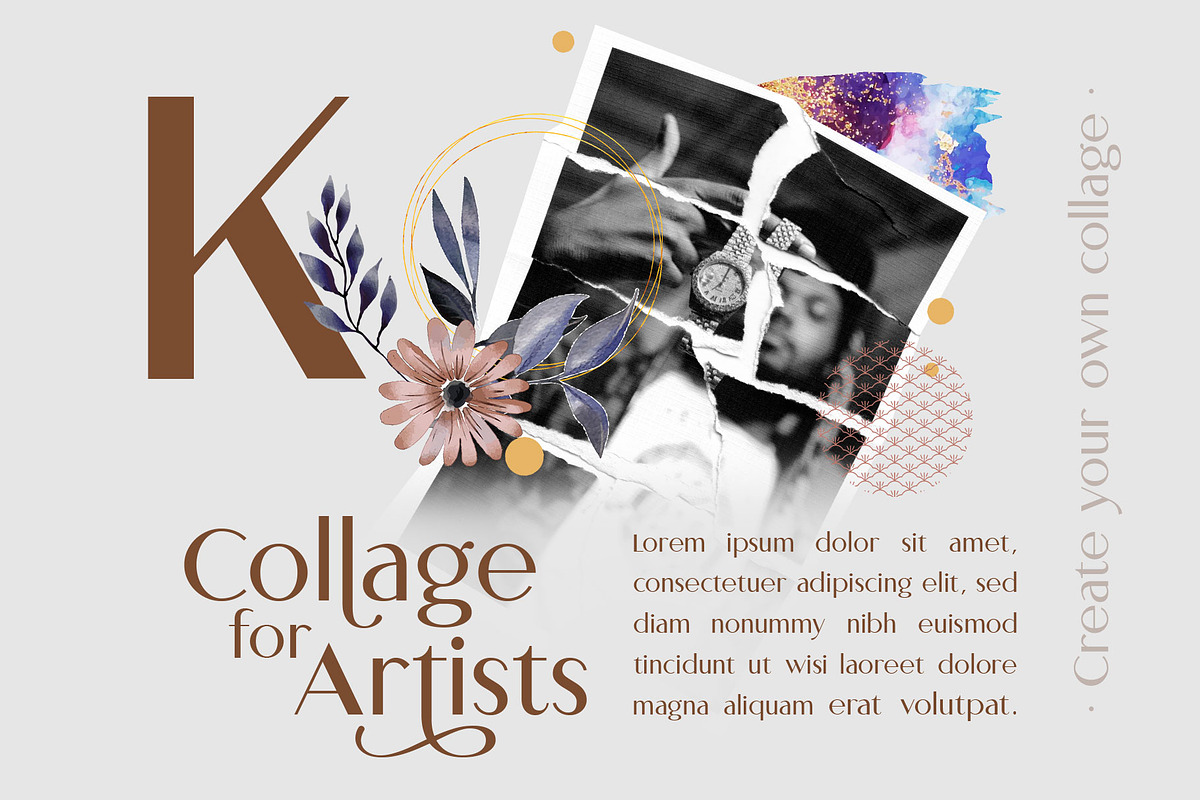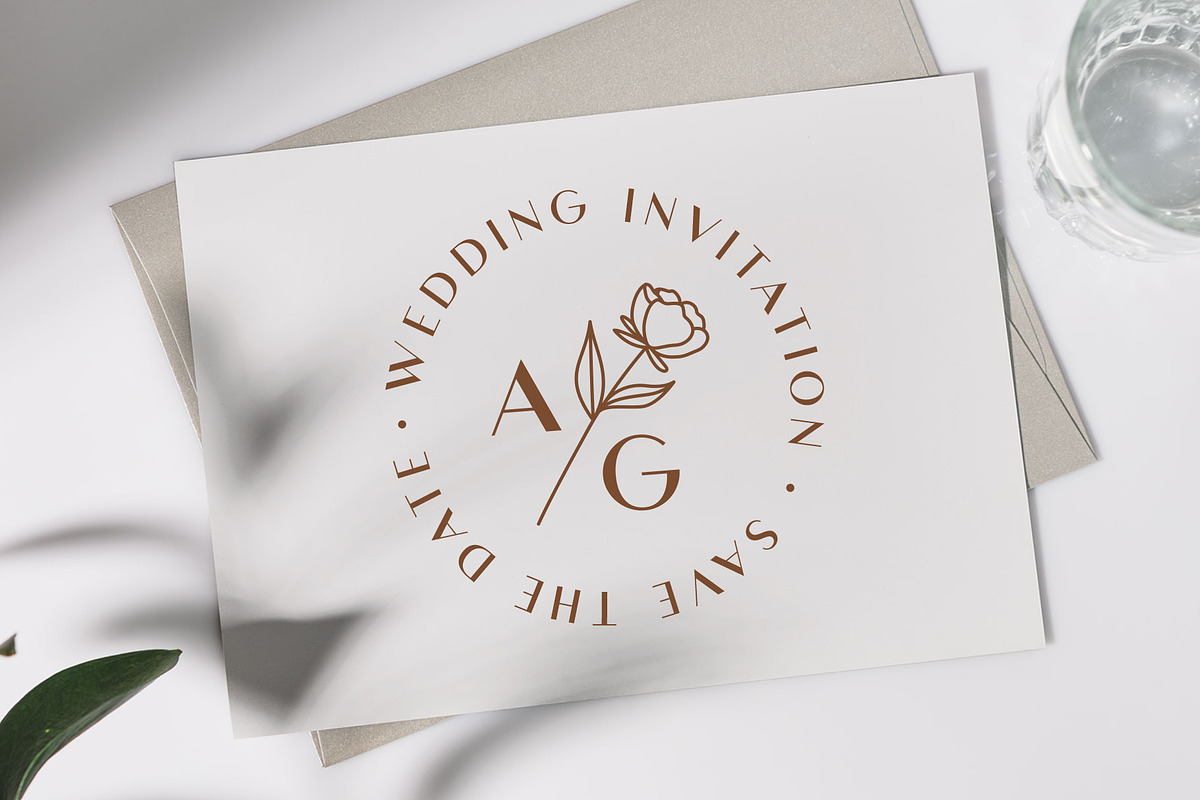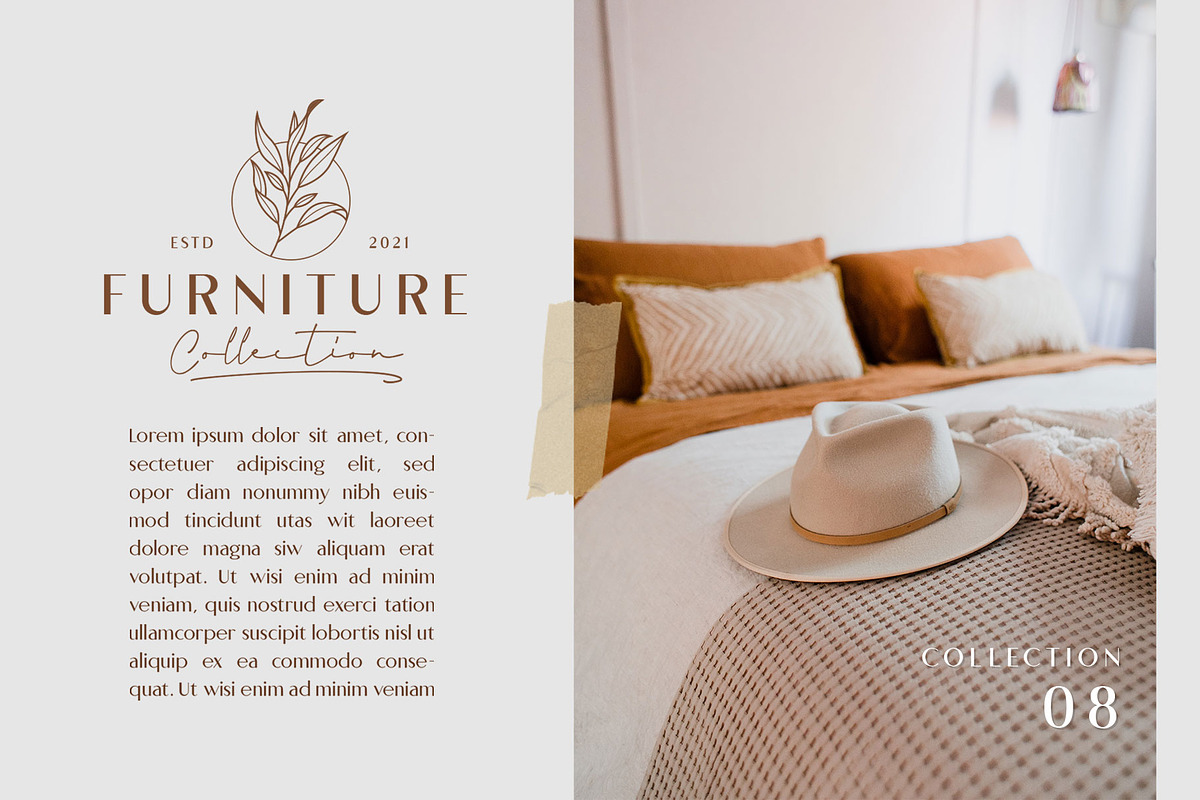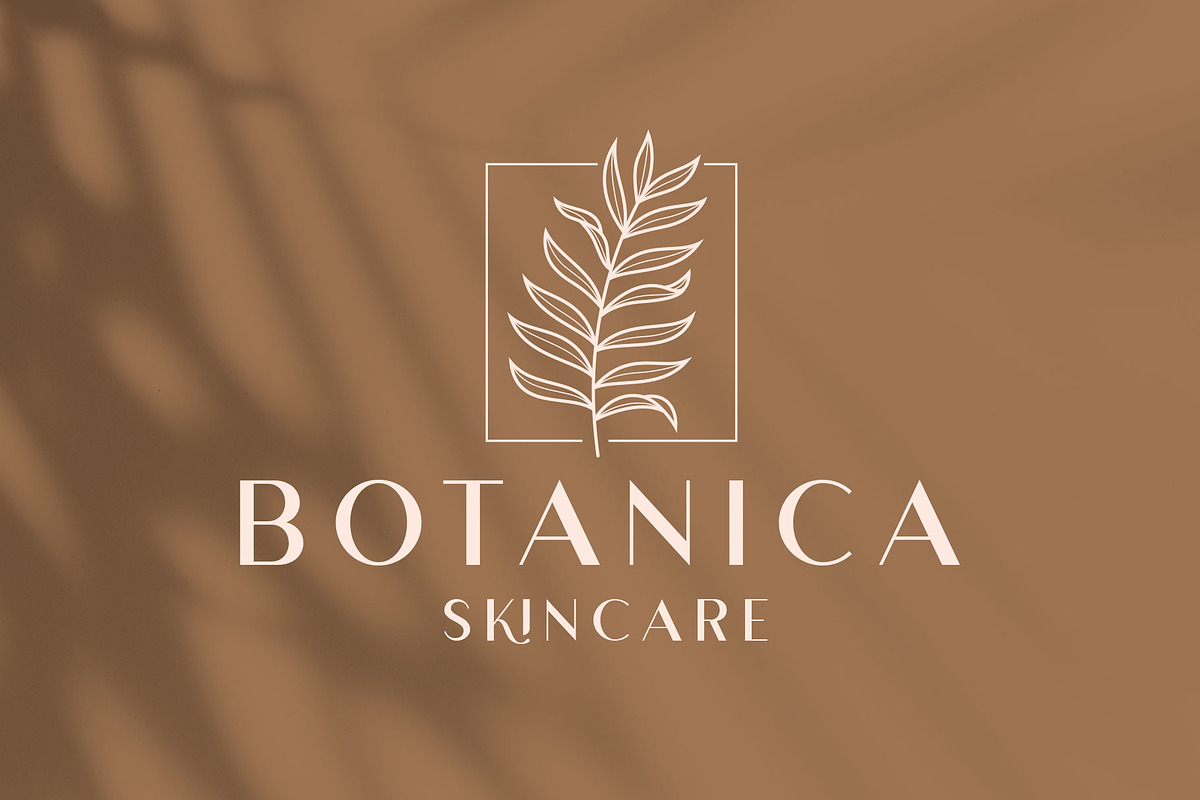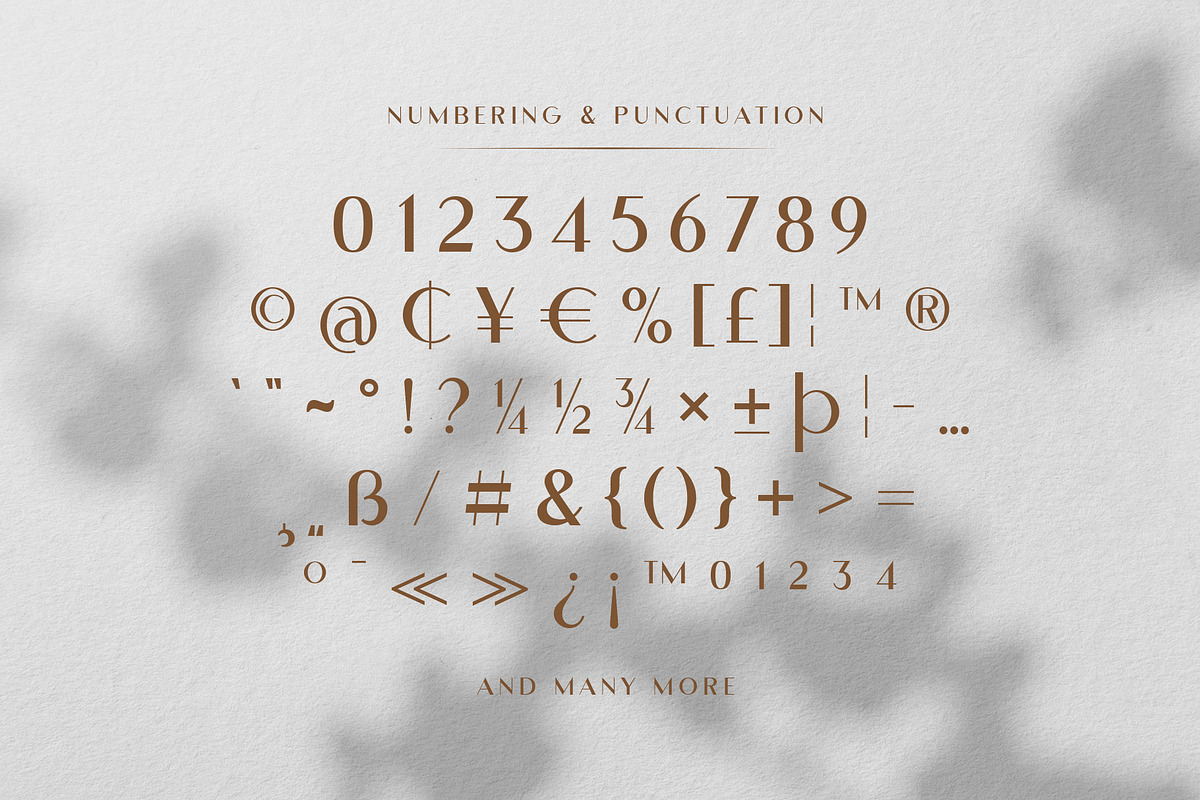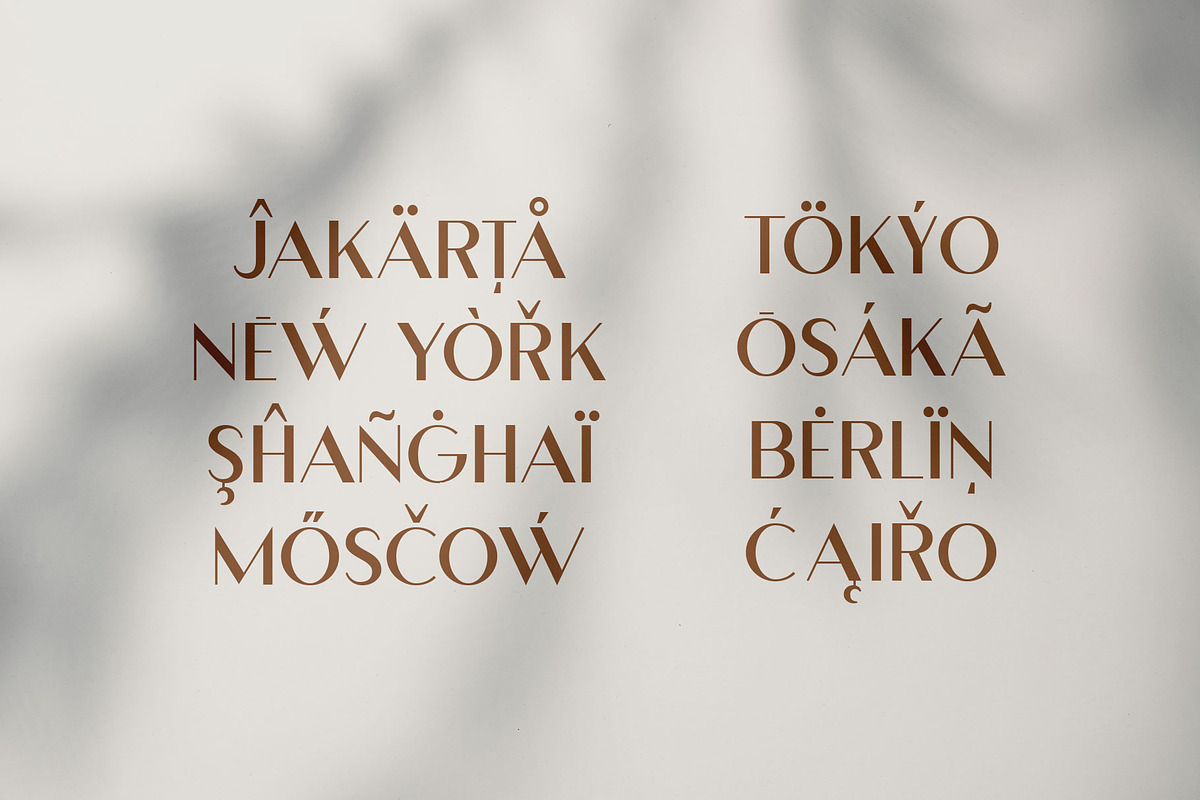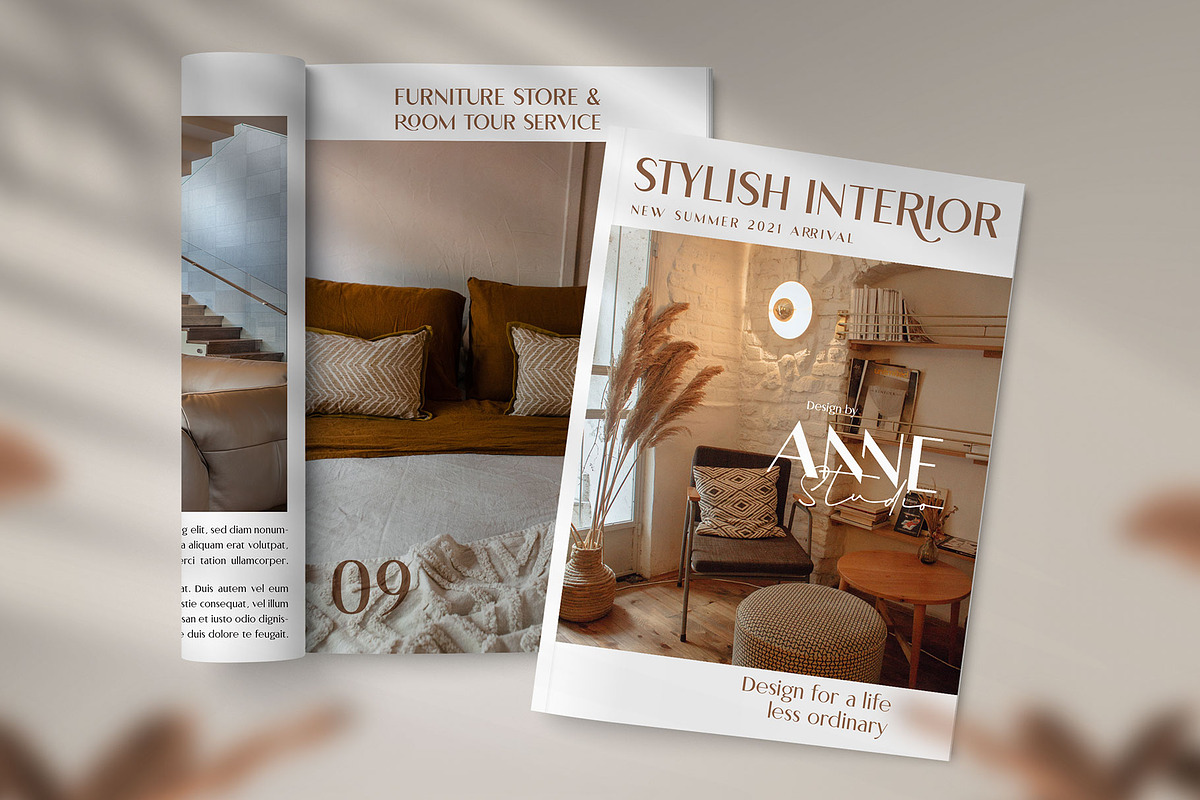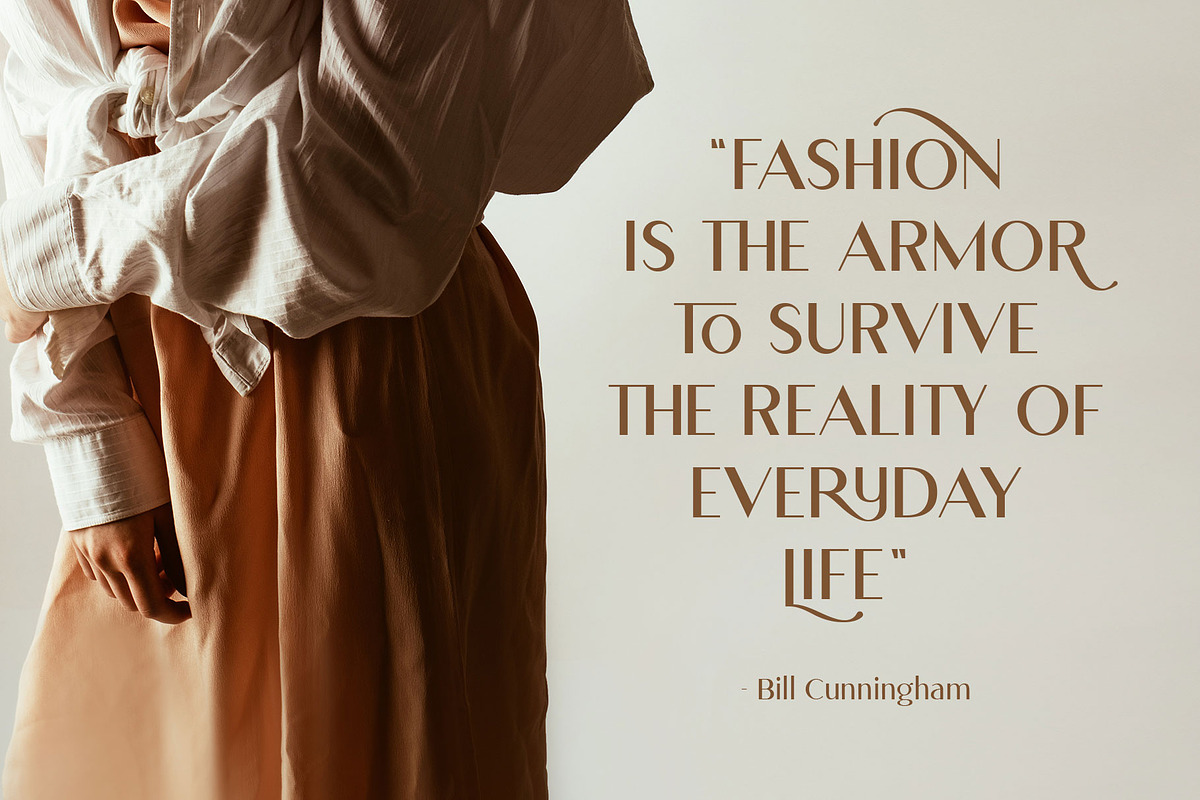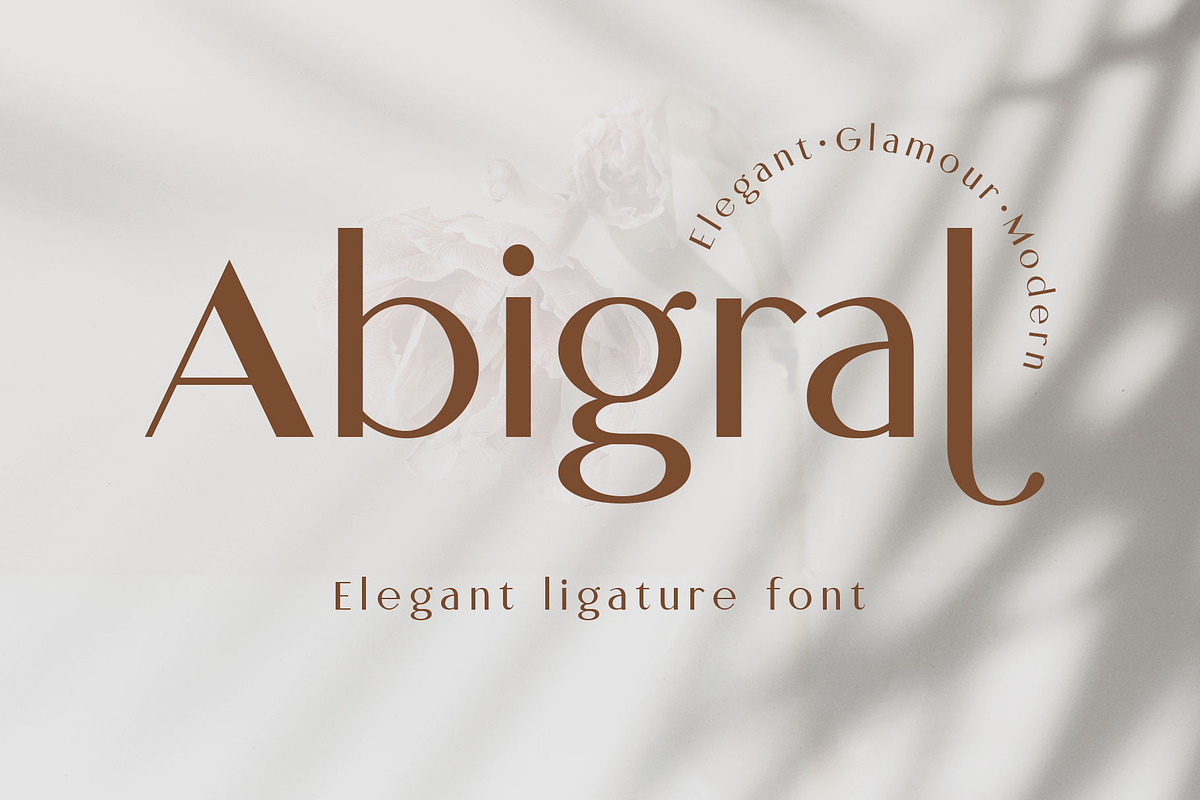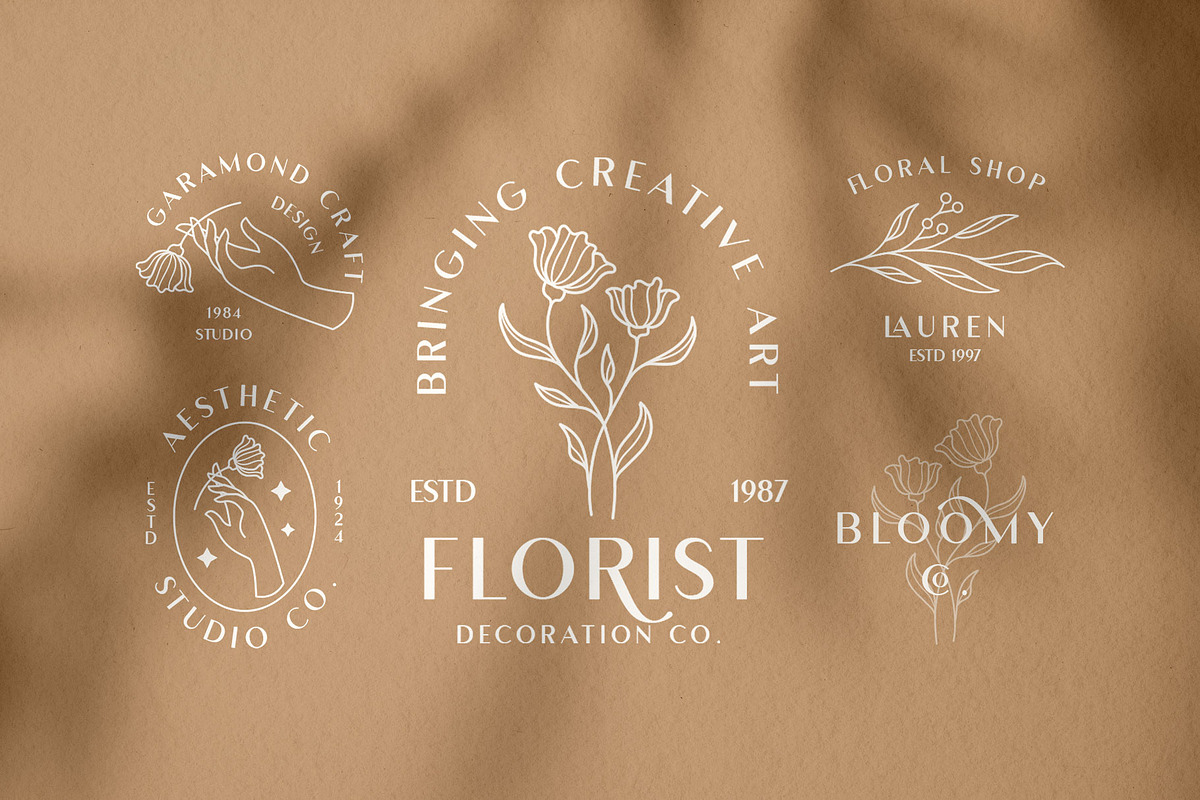
Abigral - Minimal Sans
Abigral is a minimalist sans serif font, created with geometric shapes and fancy double-strokes letterforms. Abigral is designed in normal letterspacing that looks versatile to be used as a display, logotype, or body-text. This font is compliment with the beauty alternates characters and stylish ligatures that make your design more conceptual.
This font is flexible for many styles of graphic design. You can use Abigral for minimalist themes, feminine, masculine, or luxurious. Perfect for logo, headline, magazine, body text, quotes, and more.
- Stylistic set 01-04